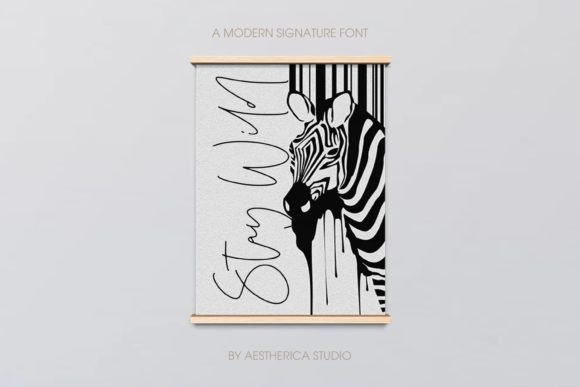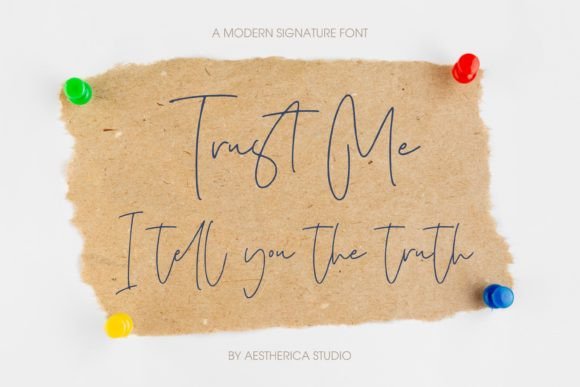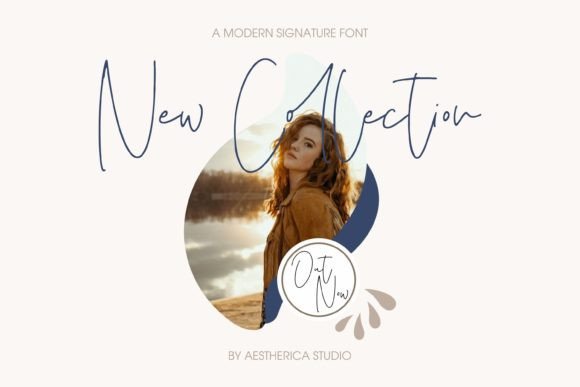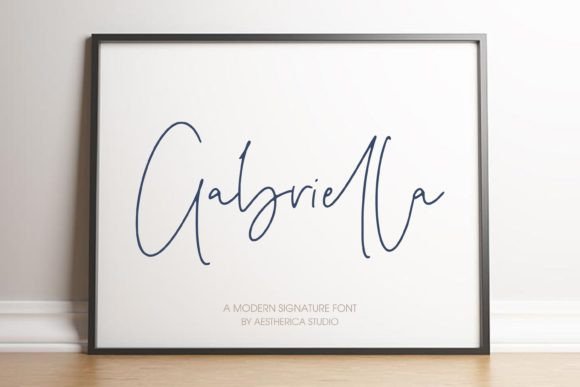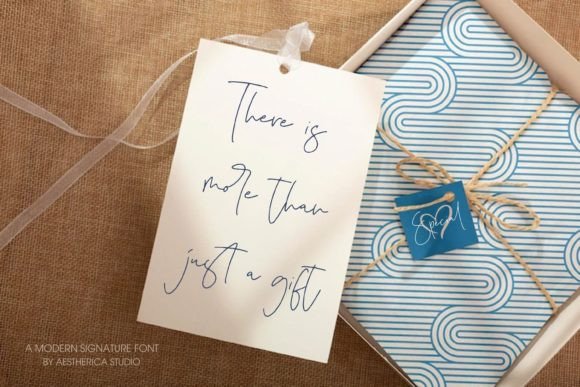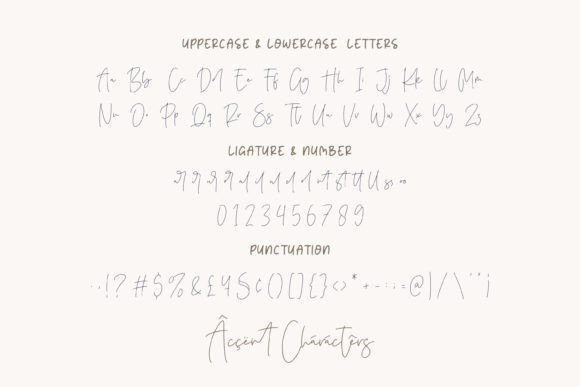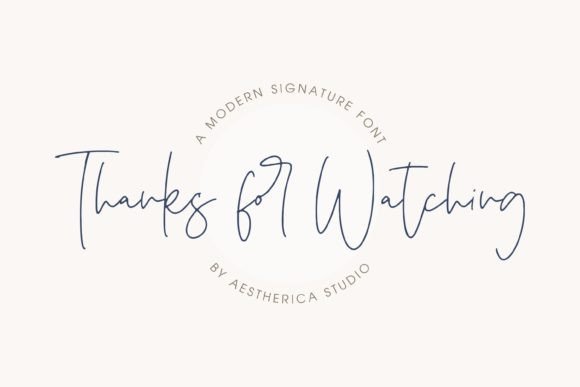
Purify Signature Font
About Purify Signature Font
“Purify Signature” is a modern and simple handwritten script font that exudes elegance and sophistication. With its contemporary and fashionable style, this font is a versatile choice suitable for a wide variety of projects. Whether you’re working on branding materials, wedding invitations, social media graphics, or any other design project, “Purify Signature” adds a touch of class and refinement to your creations.
The font’s simple and elegant handwritten script lends a personal and authentic feel to your designs. Its smooth and flowing strokes create a harmonious visual experience, making your text appear effortlessly stylish. Whether you’re aiming for a minimalist and chic look or a more refined and luxurious vibe, this font adapts to different design aesthetics, enhancing the overall appeal of your projects.
One of the strengths of “Purify Signature” is its ability to convey a sense of modernity and simplicity. Its clean lines and contemporary design make it suitable for both formal and informal contexts, making it a valuable asset for designers seeking a font that balances sophistication with approachability.
By incorporating “Purify Signature” into your projects, you’re infusing them with a touch of elegance and simplicity. Its modern and simple handwritten script adds a sense of sophistication, making your designs visually appealing and timeless. Whether you’re a graphic designer, a wedding planner, or an individual working on personal projects, “Purify Signature” provides you with a modern and stylish font choice to elevate your creative endeavors and create a lasting impression on your audience.